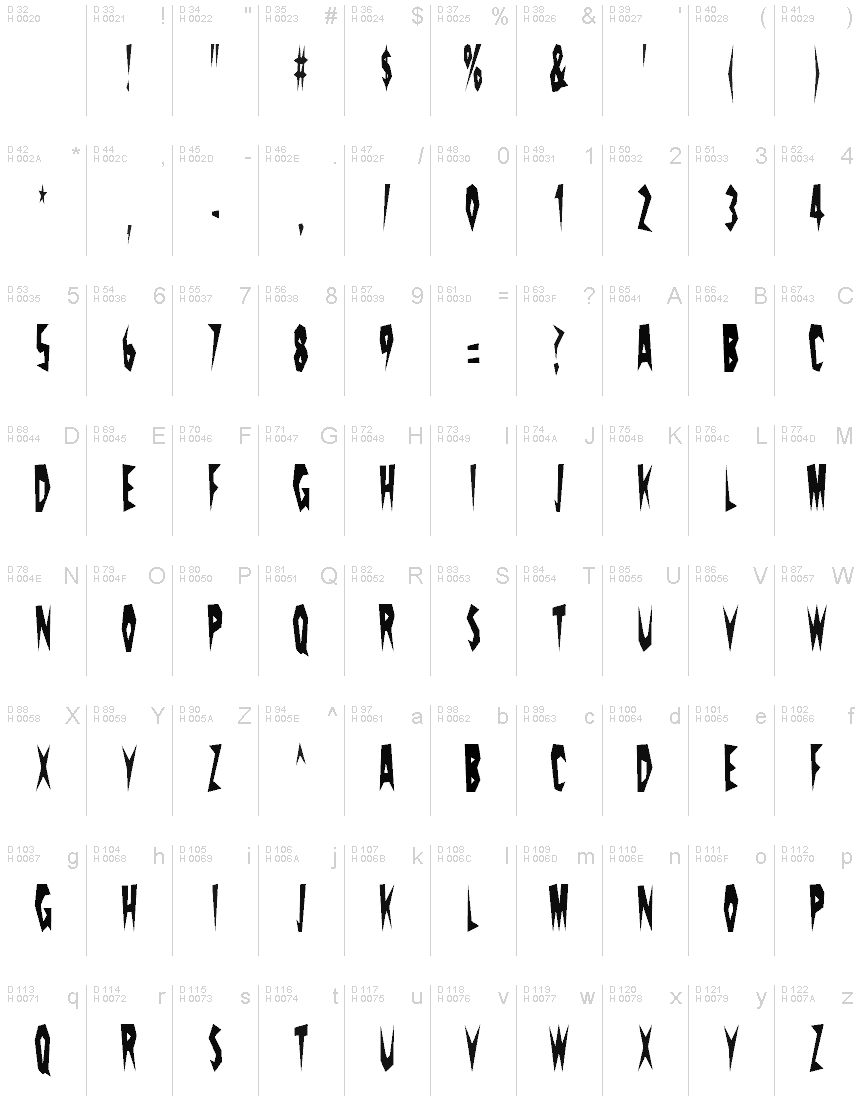
PricklyPear
Prickly Pear is a captivating display font that exudes a distinct, cartoon-inspired essence. Designed by Marty Bee, this unconventional typeface boasts an eye-catching, angular appearance reminiscent of its prickly namesake.
The condensed width lends a bold, impactful presence, while the jagged, exaggerated strokes create a dynamic, playful aesthetic. Prickly Pear's unapologetic, irreverent style makes it an ideal choice for attention-grabbing headlines, quirky branding, and whimsical illustrations. Its versatility extends beyond traditional print applications, as its striking visual appeal could also translate seamlessly to digital interfaces, product packaging, and even social media content.
Embracing the font's unique personality, designers can harness the power of Prickly Pear to inject a touch of fun and personality into a wide range of creative projects.
The condensed width lends a bold, impactful presence, while the jagged, exaggerated strokes create a dynamic, playful aesthetic. Prickly Pear's unapologetic, irreverent style makes it an ideal choice for attention-grabbing headlines, quirky branding, and whimsical illustrations. Its versatility extends beyond traditional print applications, as its striking visual appeal could also translate seamlessly to digital interfaces, product packaging, and even social media content.
Embracing the font's unique personality, designers can harness the power of Prickly Pear to inject a touch of fun and personality into a wide range of creative projects.